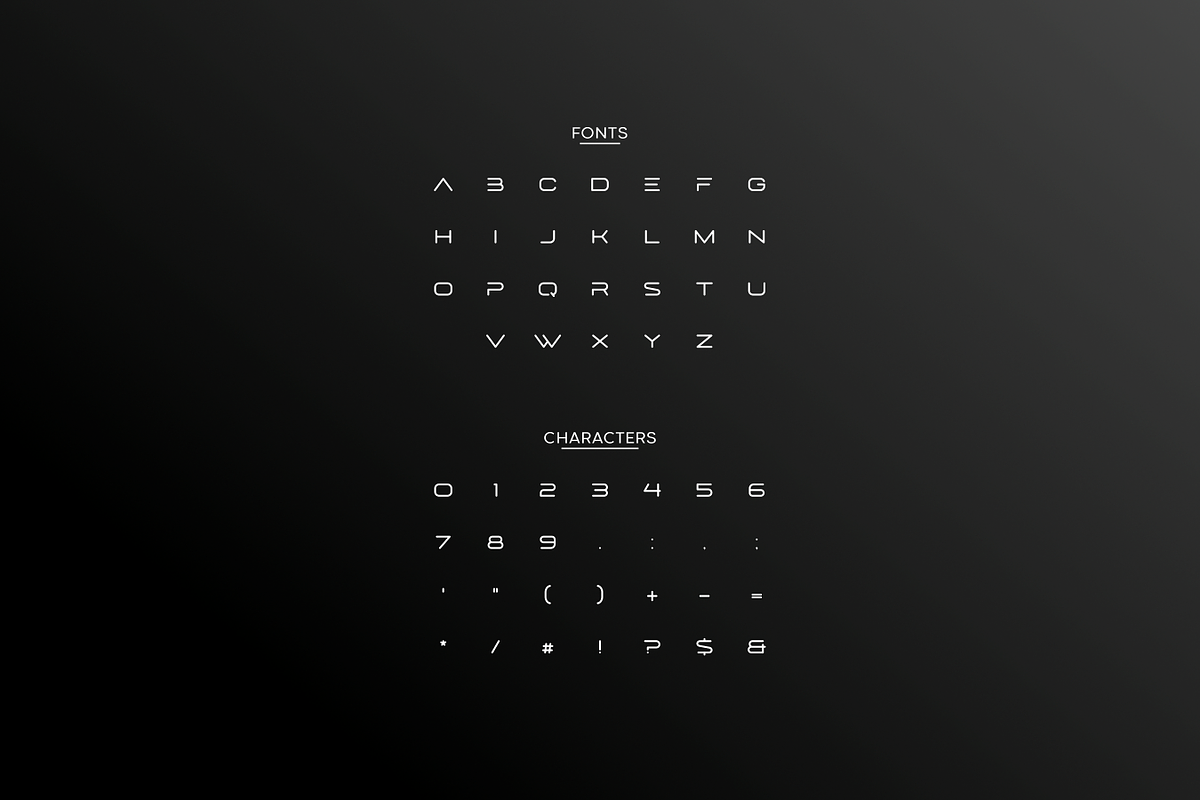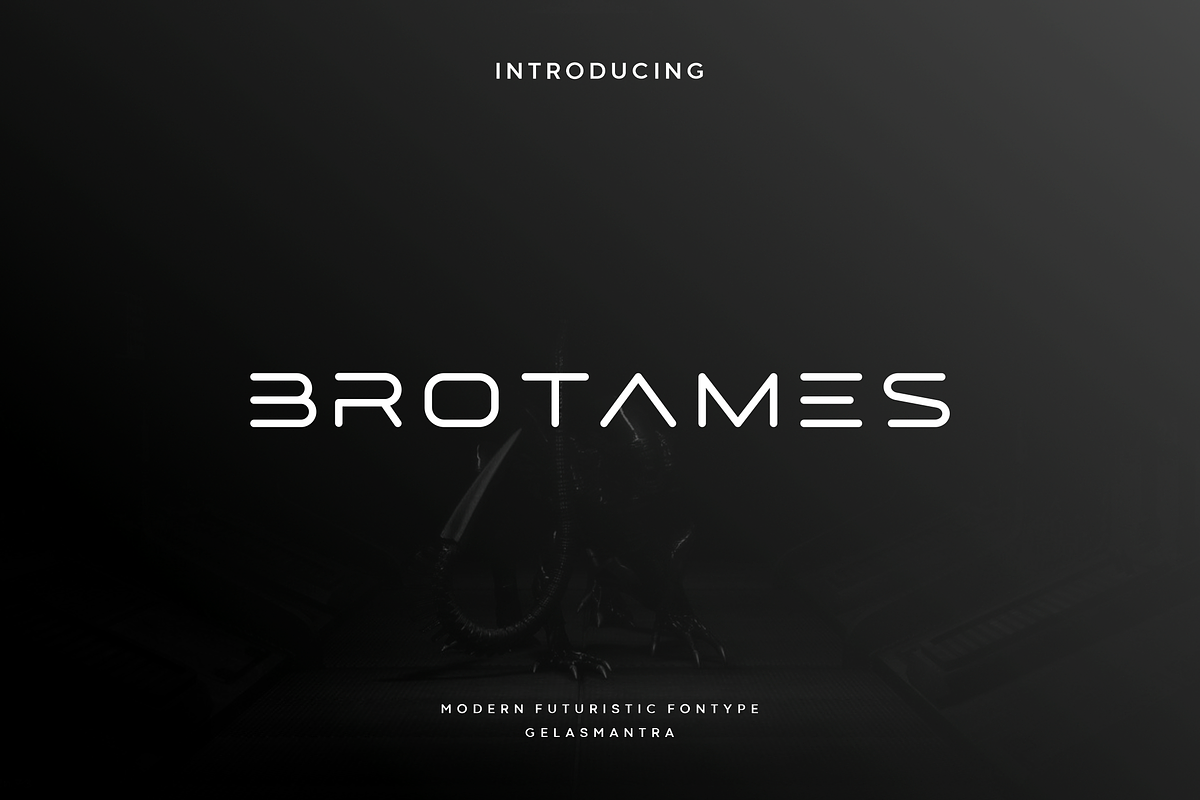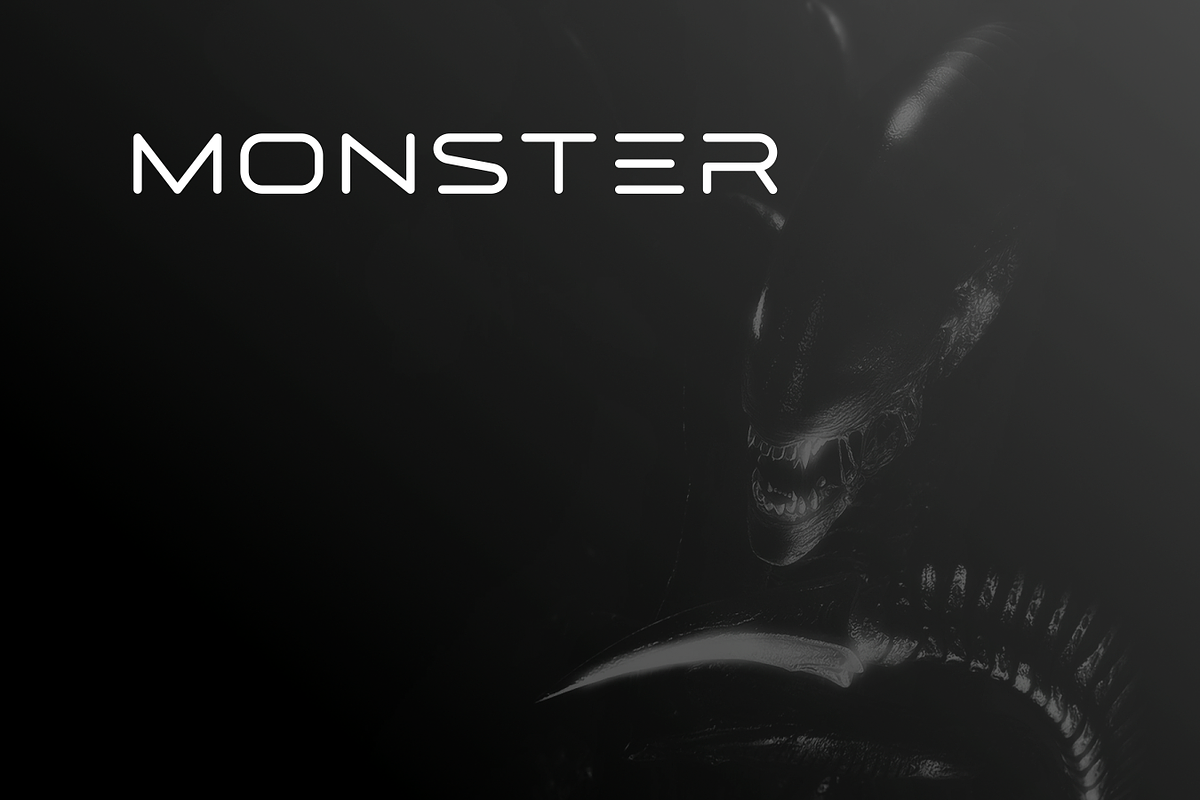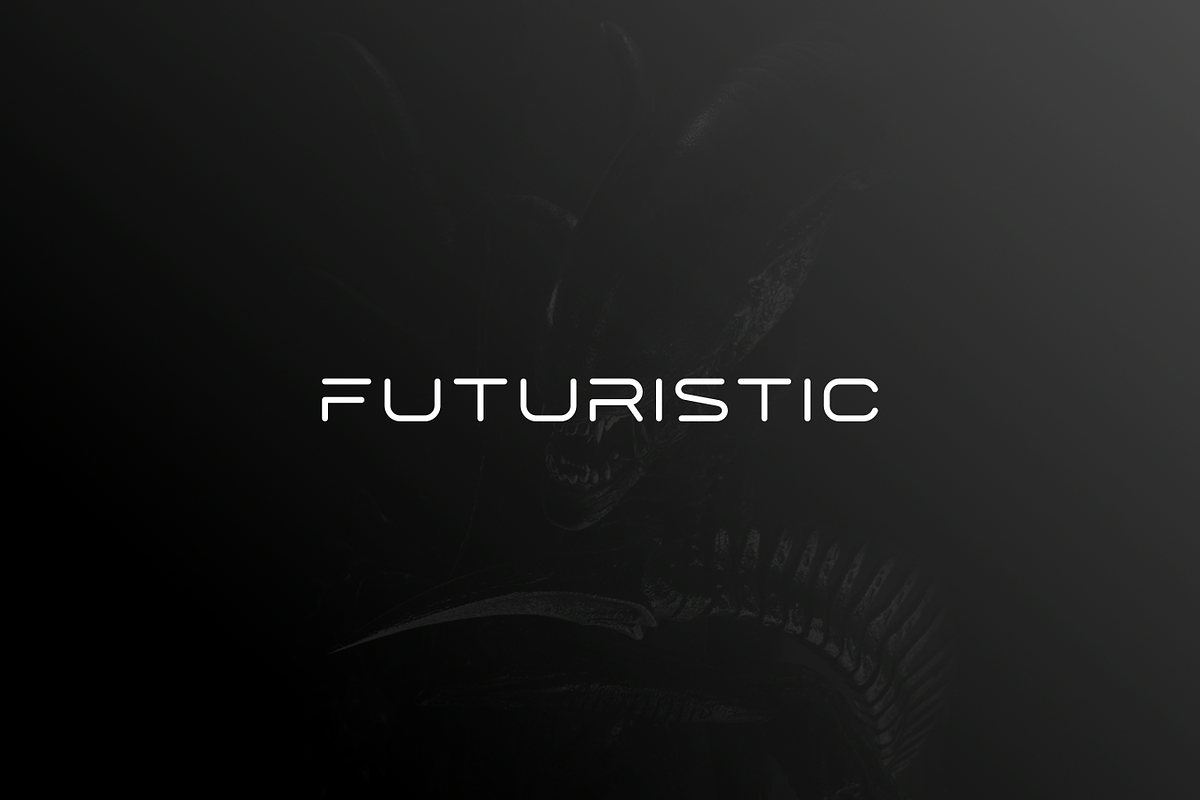
Brotames
Brotames is a futuristic font, a font inspired by the visual of technology that we can find from logo, sci-fi movies, games, and the present gadgets. Designed with minimalist style and unique letterforms, a perfect choice to use on logos, labels, posters, packaging, books, movies, presentations, games, and much more! Brotames complete with some elegant touch that give your design looks more futuristic and dynamic.